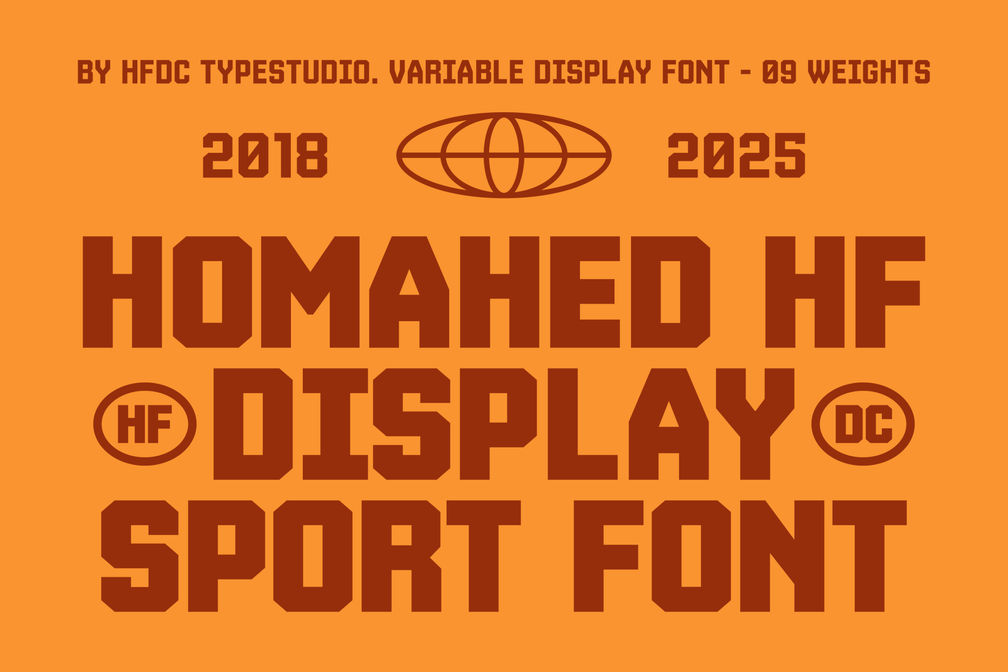
Homahed HF Variable Display Font
Homahed HF Thin
Introducing Homahed, the dynamic display sans serif font that seamlessly blends sporty elegance with a masculine touch. Perfectly suited for a variety of applications, Homahed elevates your creative projects with its striking personality. Whether you’re designing eye-catching posters, vibrant packaging, bold jerseys, or impactful logos, this versatile variable font is your go-to choice. Homahed’s unique glyph set, featuring over 250 characters, ensures that your designs can communicate effectively across multiple languages, making it an essential tool for global branding.
With its refined lines and contemporary aesthetic, Homahed stands out in headlines and promotional materials. The font’s sporty vibe lends itself beautifully to athletic branding and team logos, while its elegant curves can enhance luxury items and sophisticated merchandise. Available in TTF, OTF, WOFF, and WOFF2 formats, Homahed is designed for easy integration into your design workflow, providing the flexibility you need for both digital and print mediums. Experience the perfect blend of style and functionality with Homahed, and watch your designs come to life.
• 9 Weights (Thin → Black)
• Uppercase & Lowercase
• Number
• Punctuation
• Multilingual Character Set
• Perfect for Branding, Sports Graphics, Posters, Signage, and More